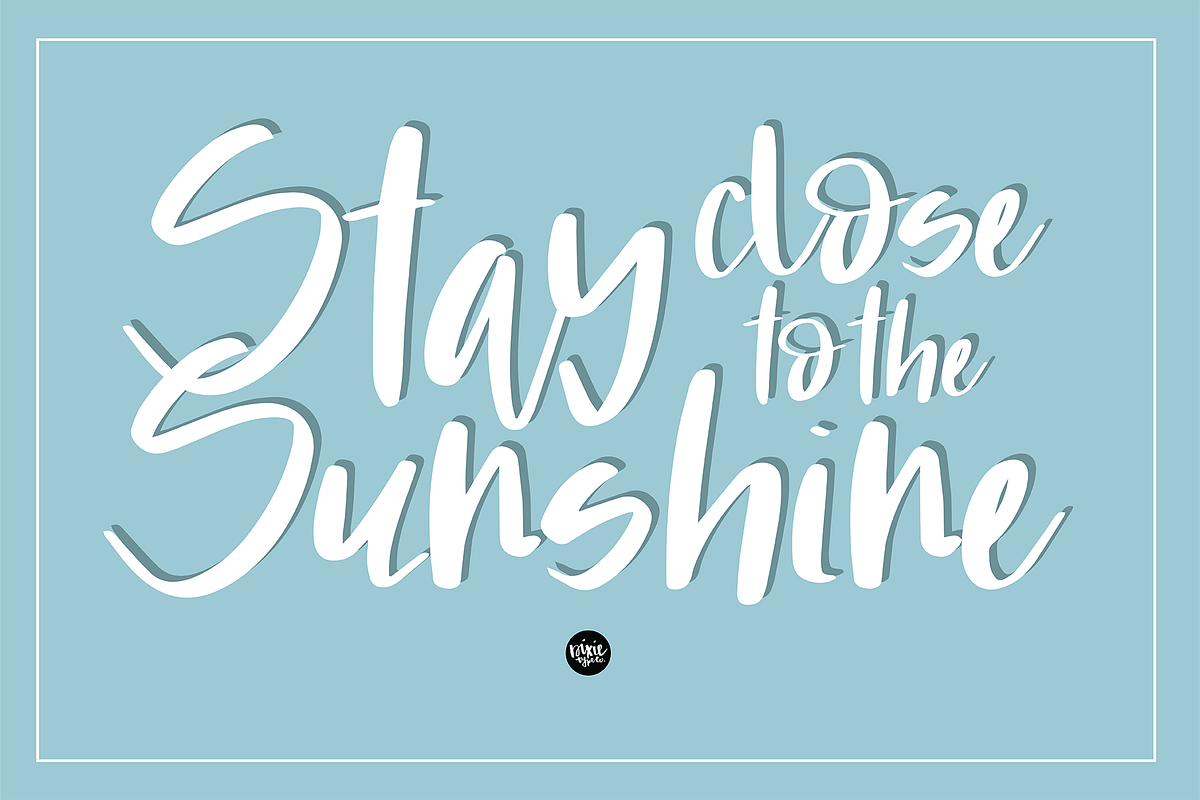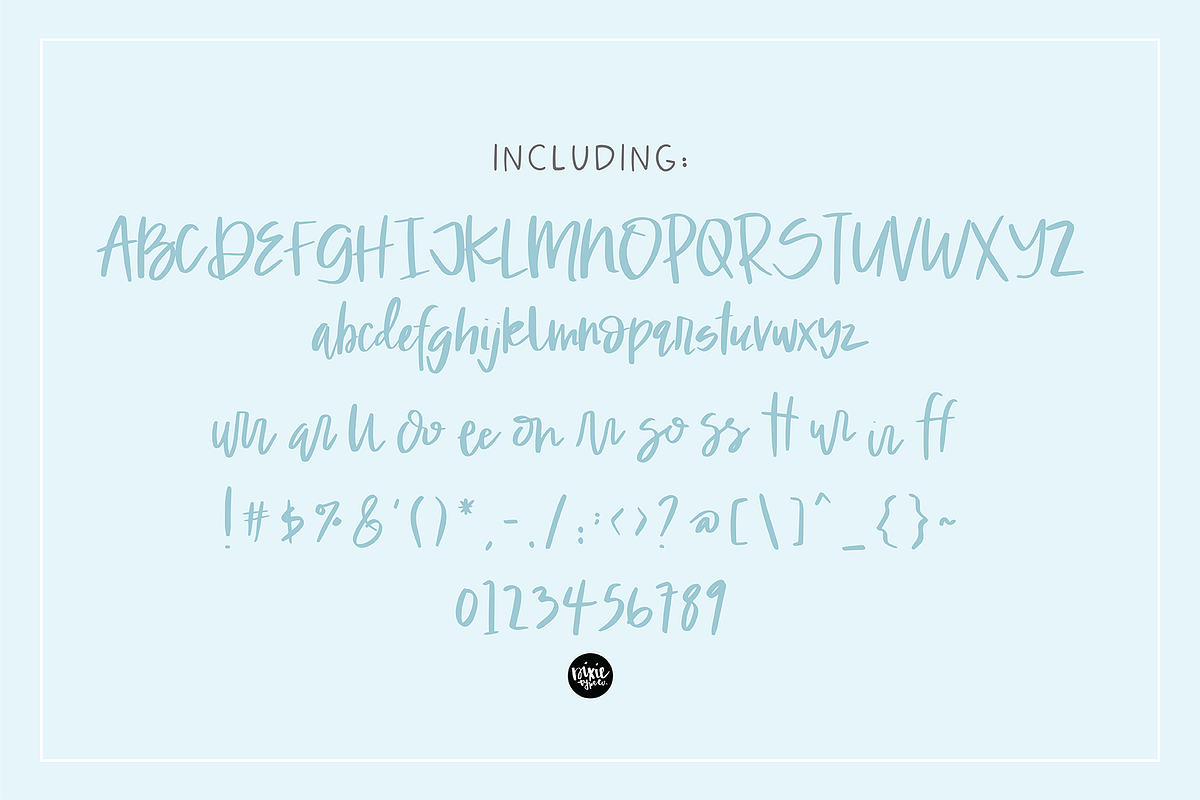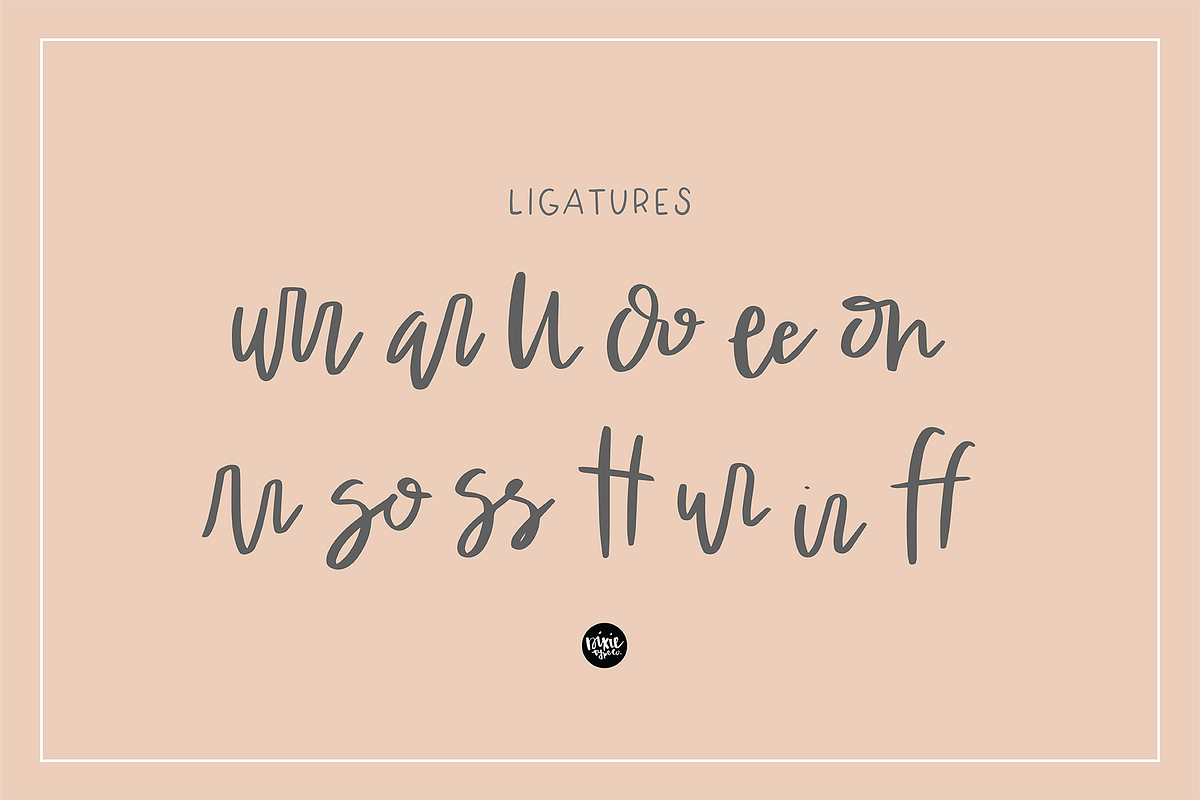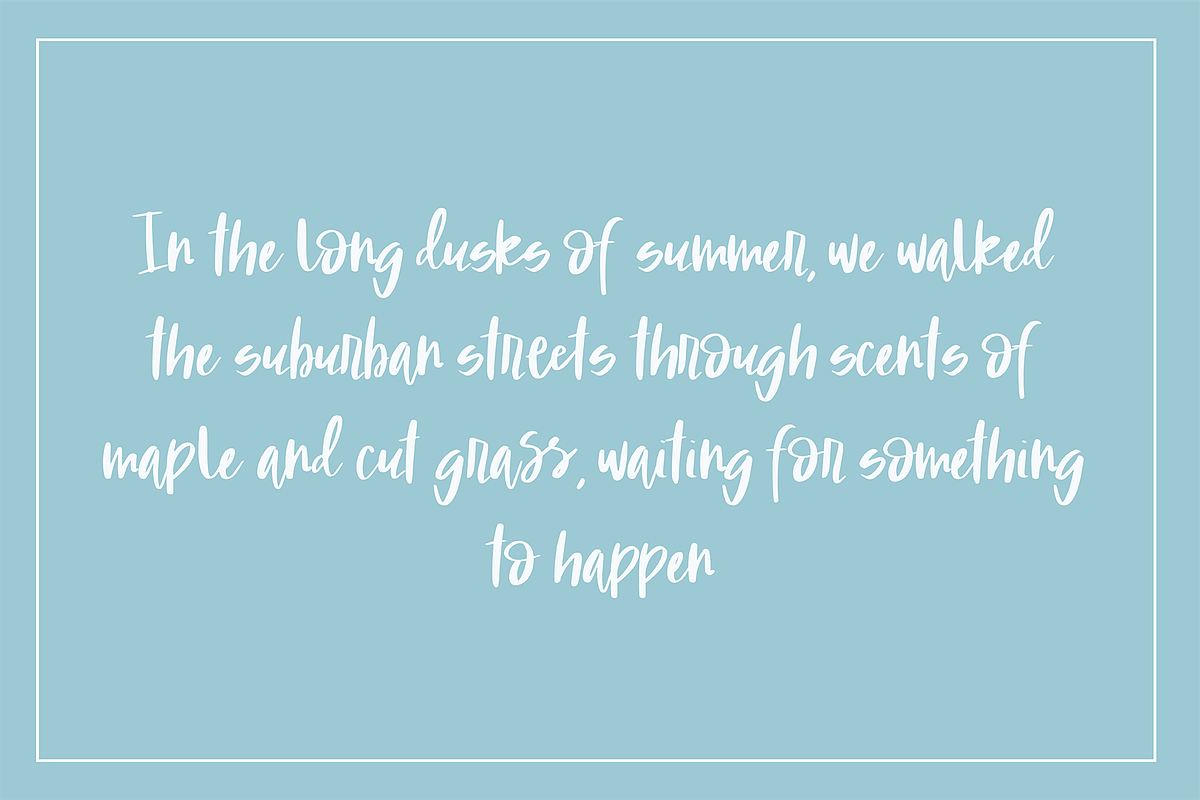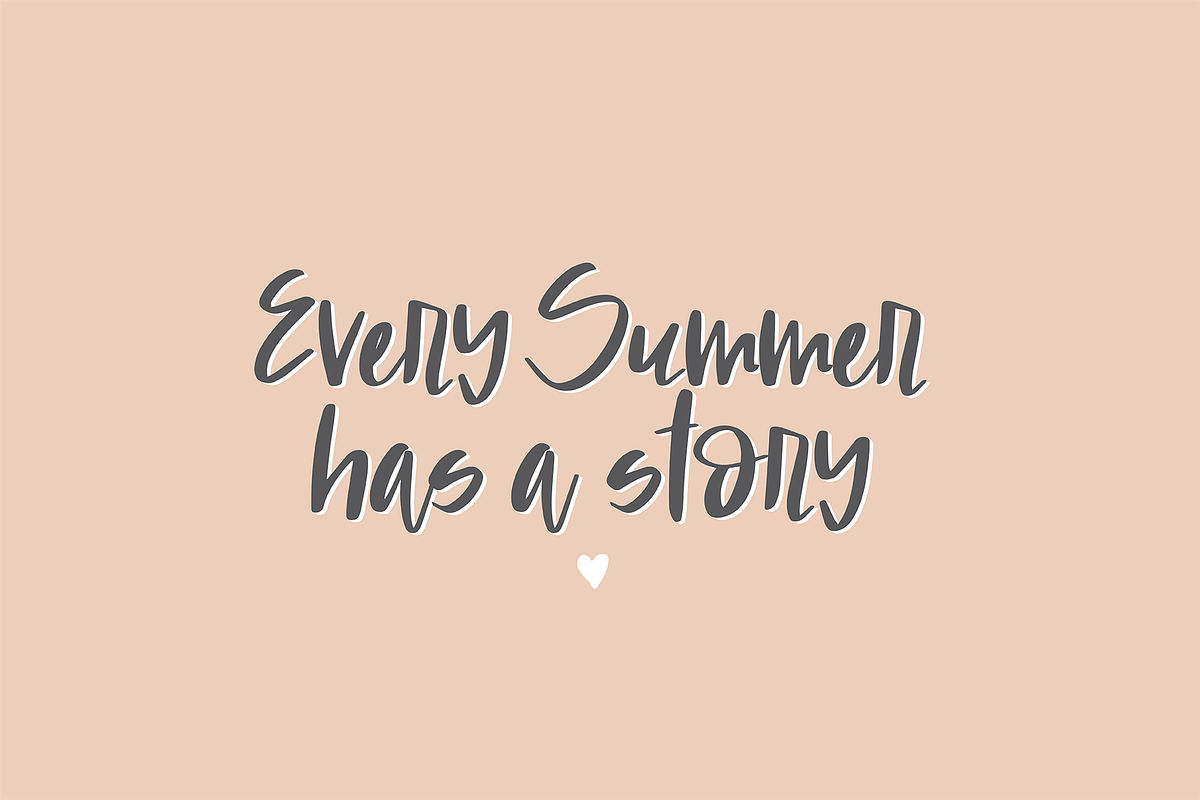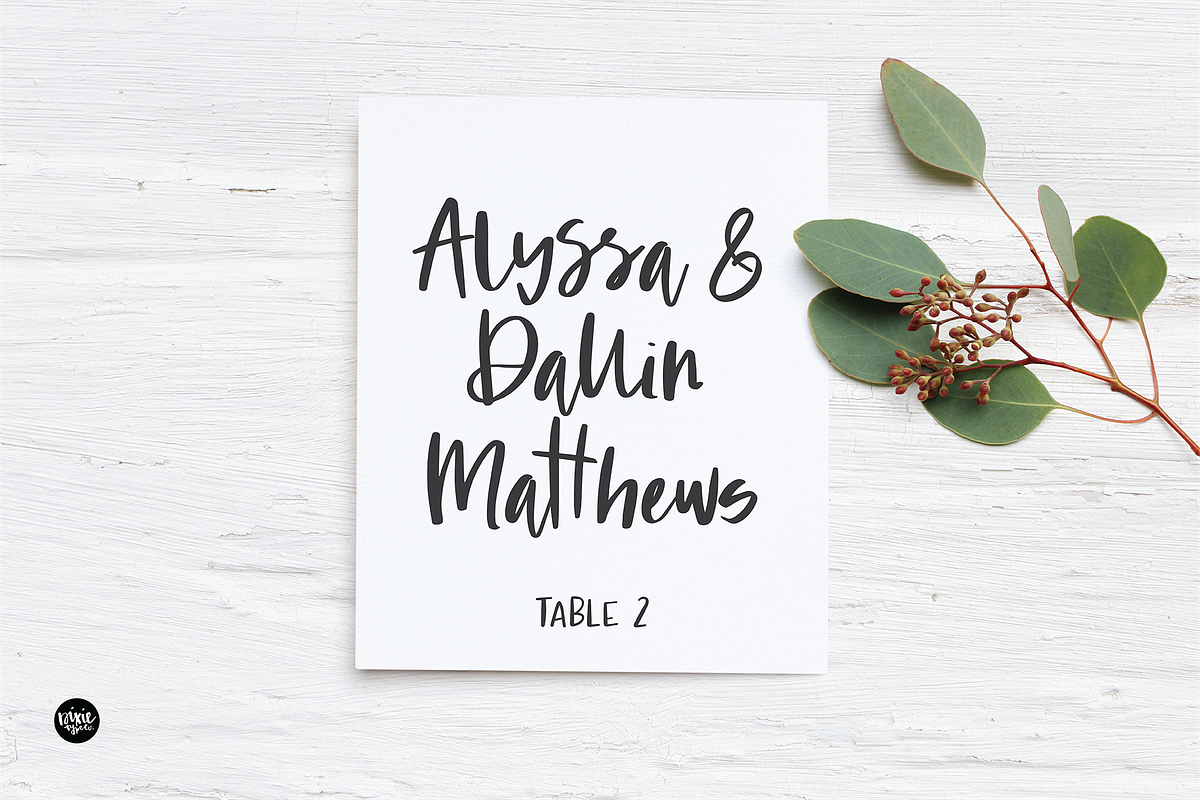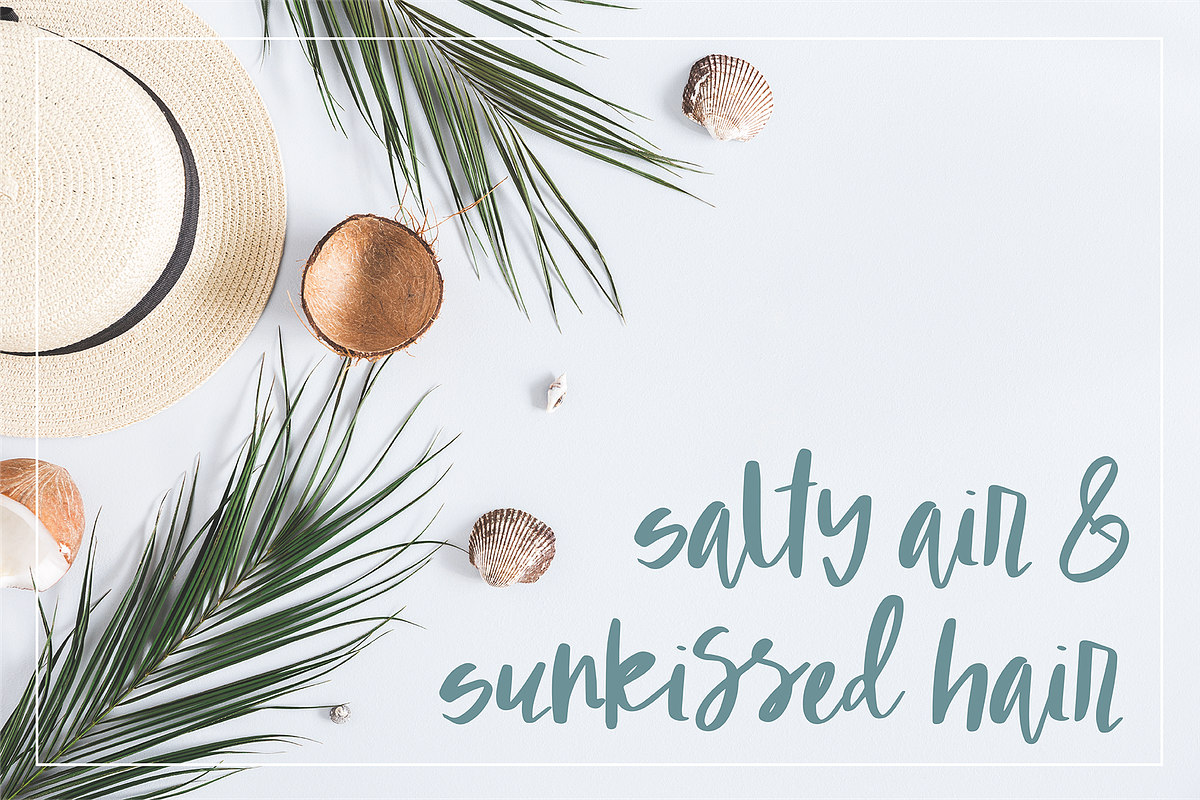
GOLDEN DAYS Brush Signature Script
Golden Days (DTC Golden Days)
{ A typographic font hand-lettered with love by Dixie Type Co. }
Golden Days is a brush signature script font with ligatures.
Font includes: Upper and lowercase glyphs, numbers, punctuation, and 13 ligatures. The ligatures included in the font are OpenType features. If you do not have OpenType features enabled, make sure you have access to a character map or glyphs panel to use the extras. We also included an extra font file with the 13 ligatures.